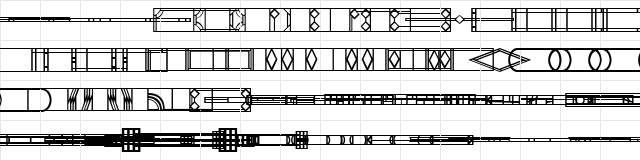
SC Glass Buttonsnbars Regular Font Preview
SC Glass Buttonsnbars Regular
Design Context for SC Glass Buttonsnbars Typeface
SC Glass Buttonsnbars is a composed and adaptable typeface that performs quietly and consistently across a wide range of design contexts.